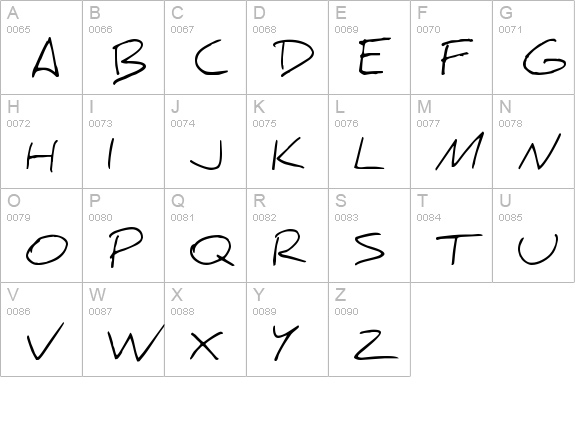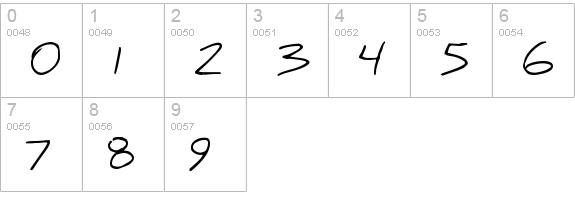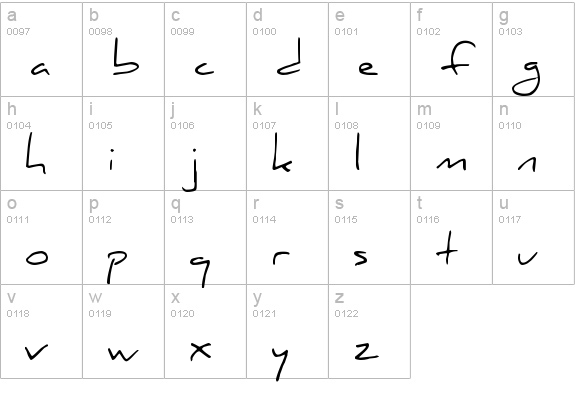
Daniel Font Details
Daniel font is a stunning and versatile typeface that effortlessly merges elegance with modernity. With its clean lines and timeless appeal, this font is perfect for adding a touch of sophistication to any project. Whether you're designing a logo, creating eye-catching headlines, or crafting beautiful invitations, Daniel font is sure to captivate your audience. This font boasts a wide range of characters, including uppercase and lowercase letters, numerals, punctuation marks, and special symbols. Its smooth curves and impeccable letterforms make it highly legible, ensuring that your message will be easily understood by readers. The balanced spacing and well-proportioned glyphs create a harmonious flow, resulting in a visually pleasing composition. One of the most remarkable aspects of Daniel font is that it is available for free download at FontsMarket.com. This means that you can access this exquisite typeface without any cost, making it a fantastic option for both personal and commercial projects. Whether you're a professional designer or a hobbyist, having access to high-quality fonts like Daniel font can greatly enhance your creative endeavors. Downloading Daniel font is incredibly easy. Simply visit FontsMarket.com and navigate to the font's page. From there, you can download the font file and install it on your computer or device. Once installed, you can start using Daniel font in various design applications such as Adobe Photoshop, Illustrator, or Microsoft Word. In conclusion, Daniel font is a remarkable typeface that effortlessly combines elegance and modernity. Its clean lines, versatile characters, and timeless appeal make it a perfect choice for a wide range of design projects. And the fact that it is freely available for download at FontsMarket.com makes it even more appealing. So why wait? Enhance your designs with the captivating beauty of Daniel font today!